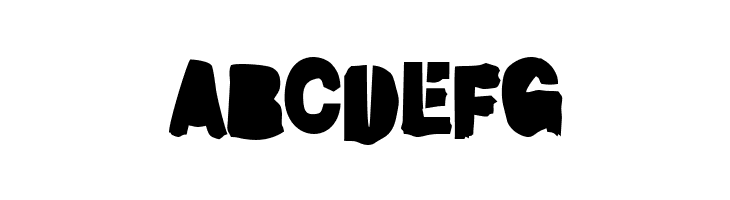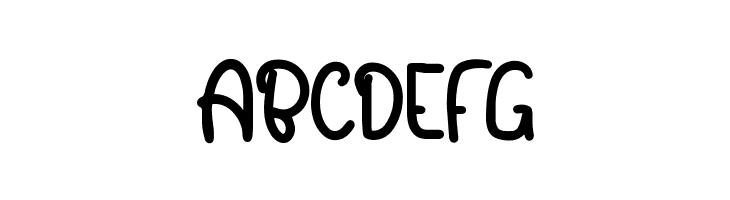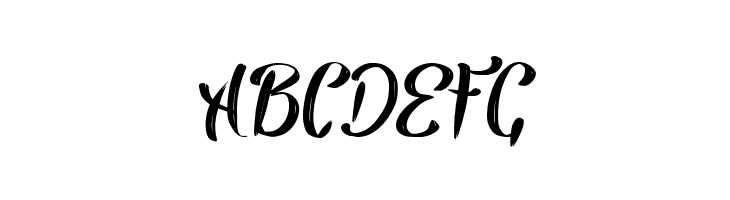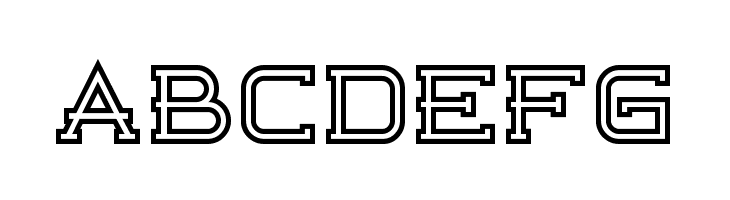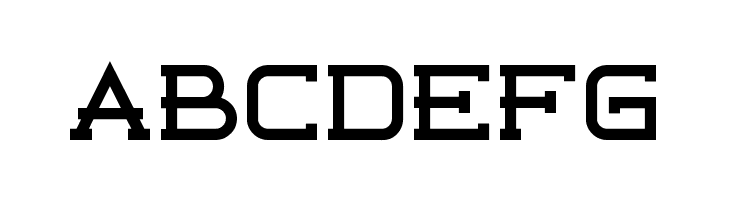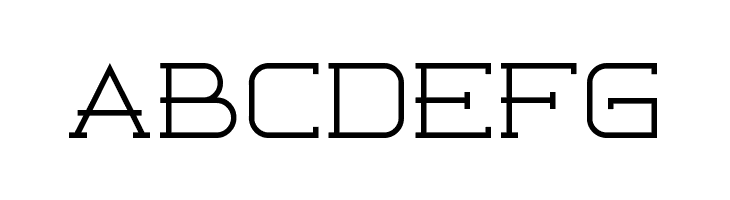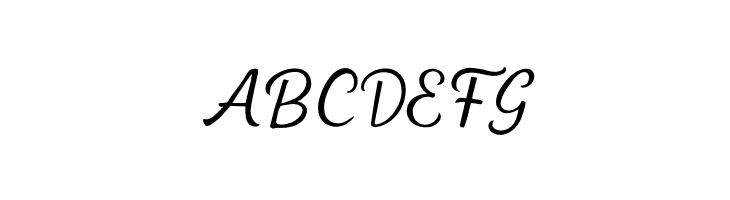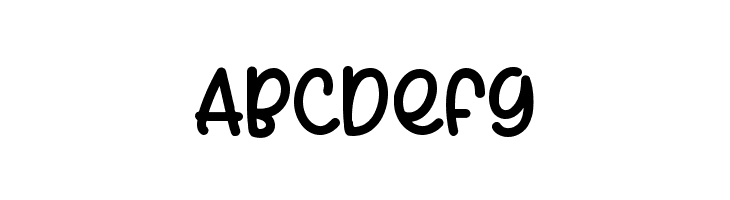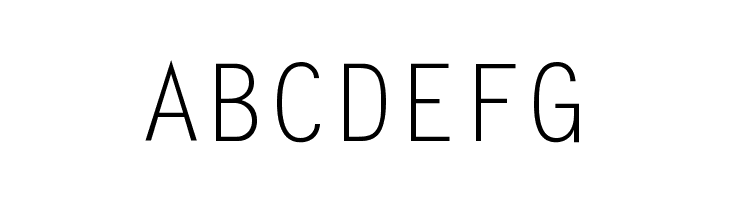
A playful, rounded handwritten font with smooth curves and a friendly appearance.
A dynamic and flowing script font with elegant cursive letterforms.
A bold, playful font with irregular, chunky characters and a whimsical style.
A bold, handwritten font with a playful and casual style.
A clean, monospaced font with a modern, minimalist design.
A lively, cursive handwritten font with fluid strokes and dynamic energy.
A bold, geometric font with a modern and industrial aesthetic.
A bold, geometric outline font with a modern architectural style.
A geometric, thin-stroked font with a modern and structured design.
An elegant script font with flowing, cursive letterforms and medium contrast.